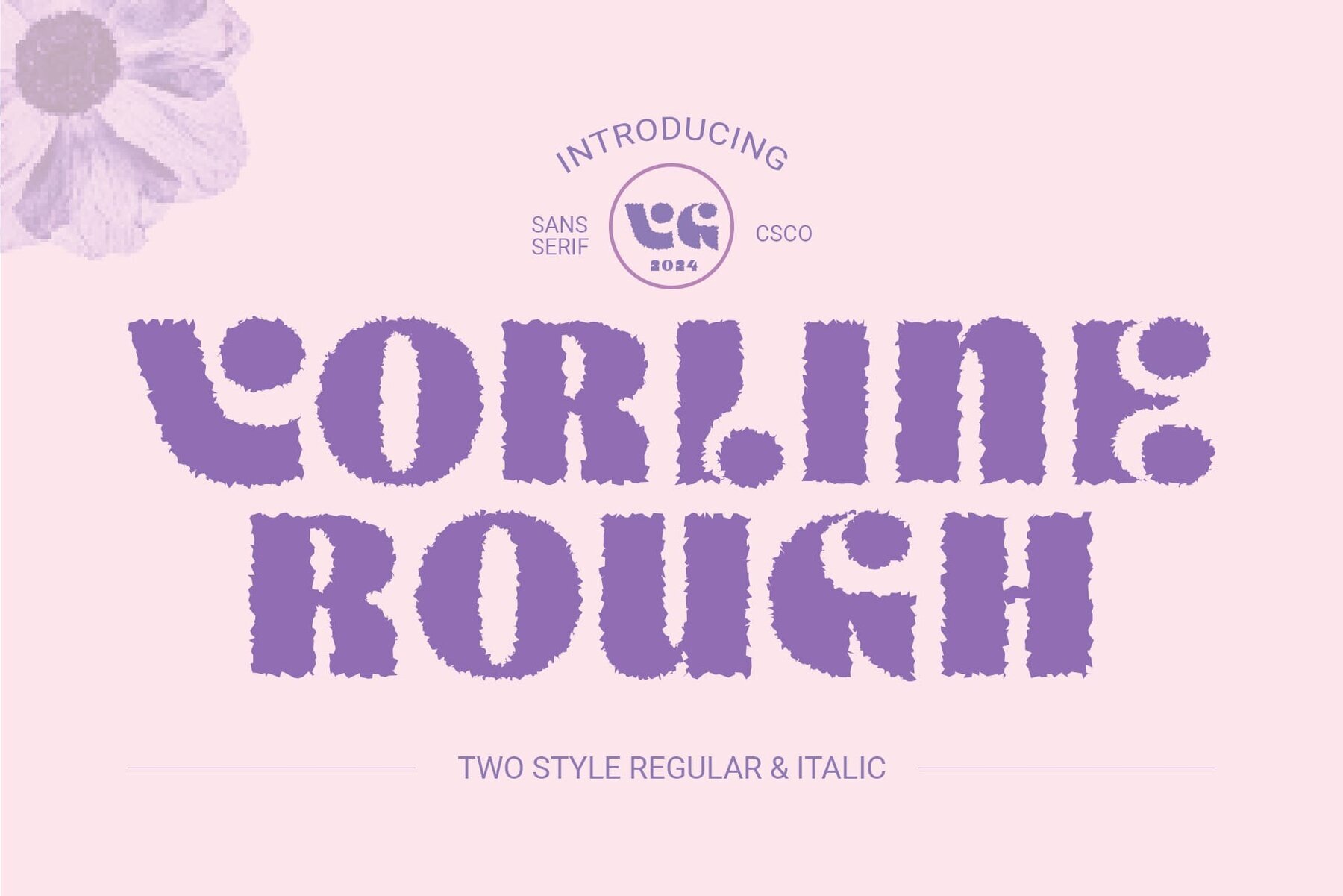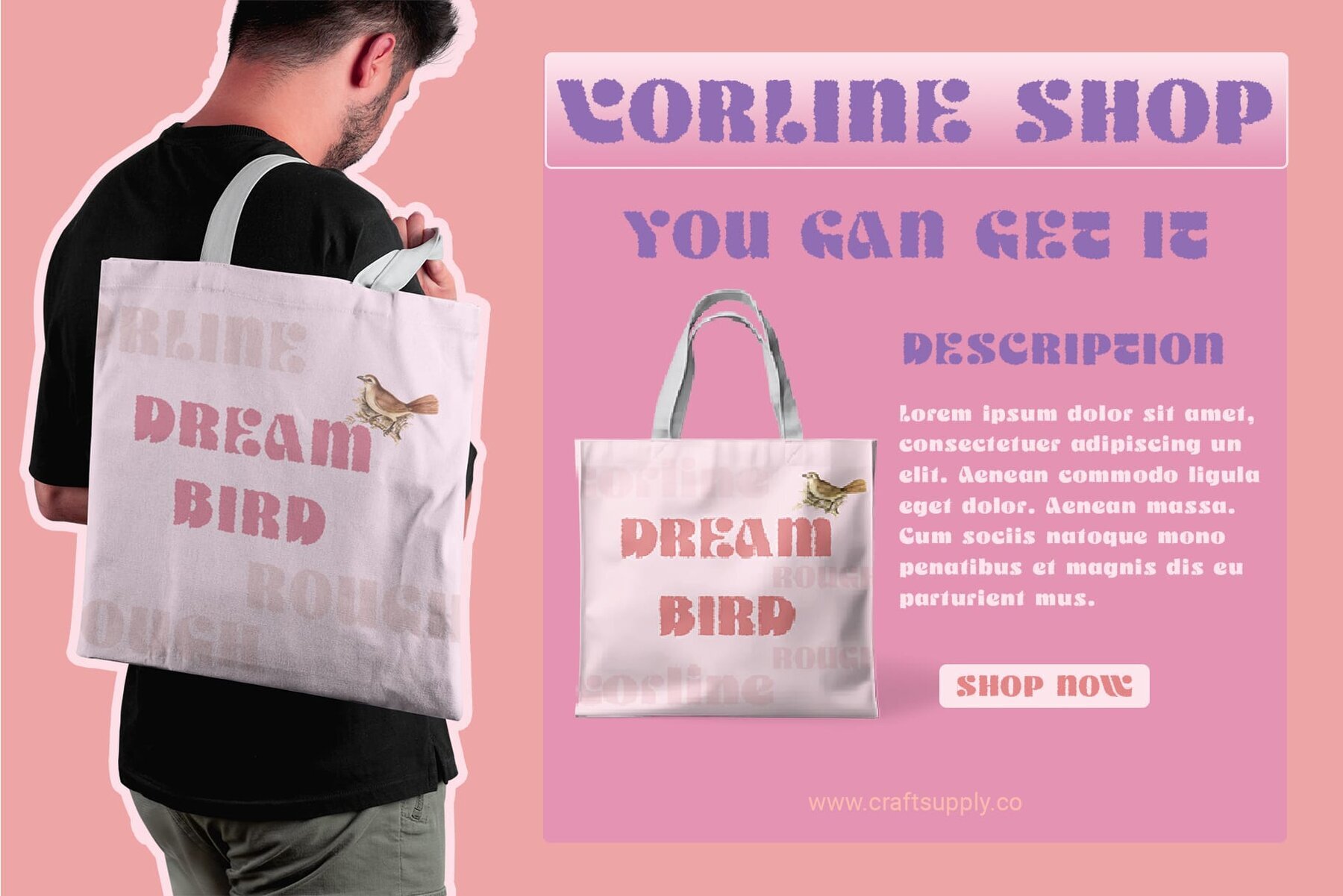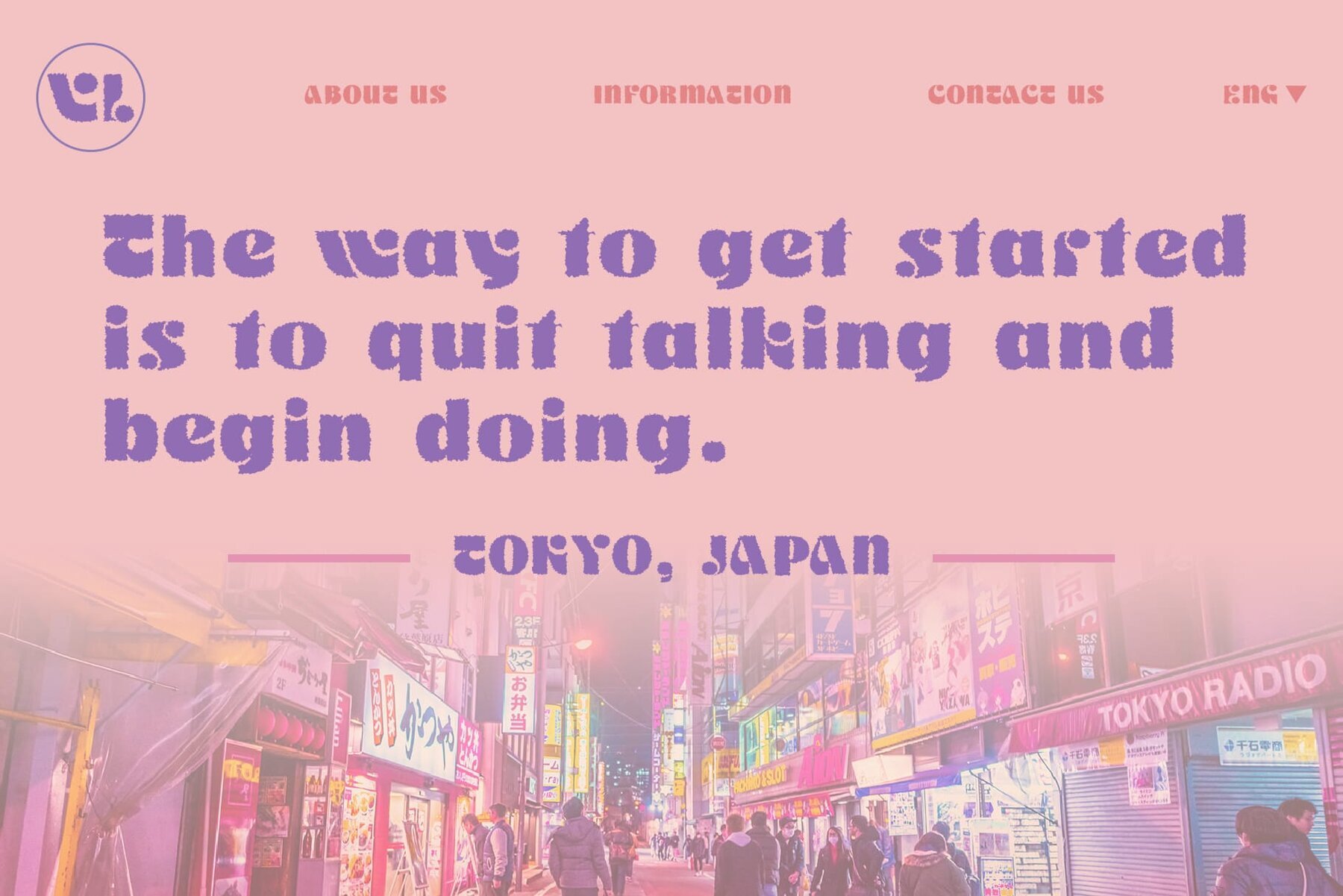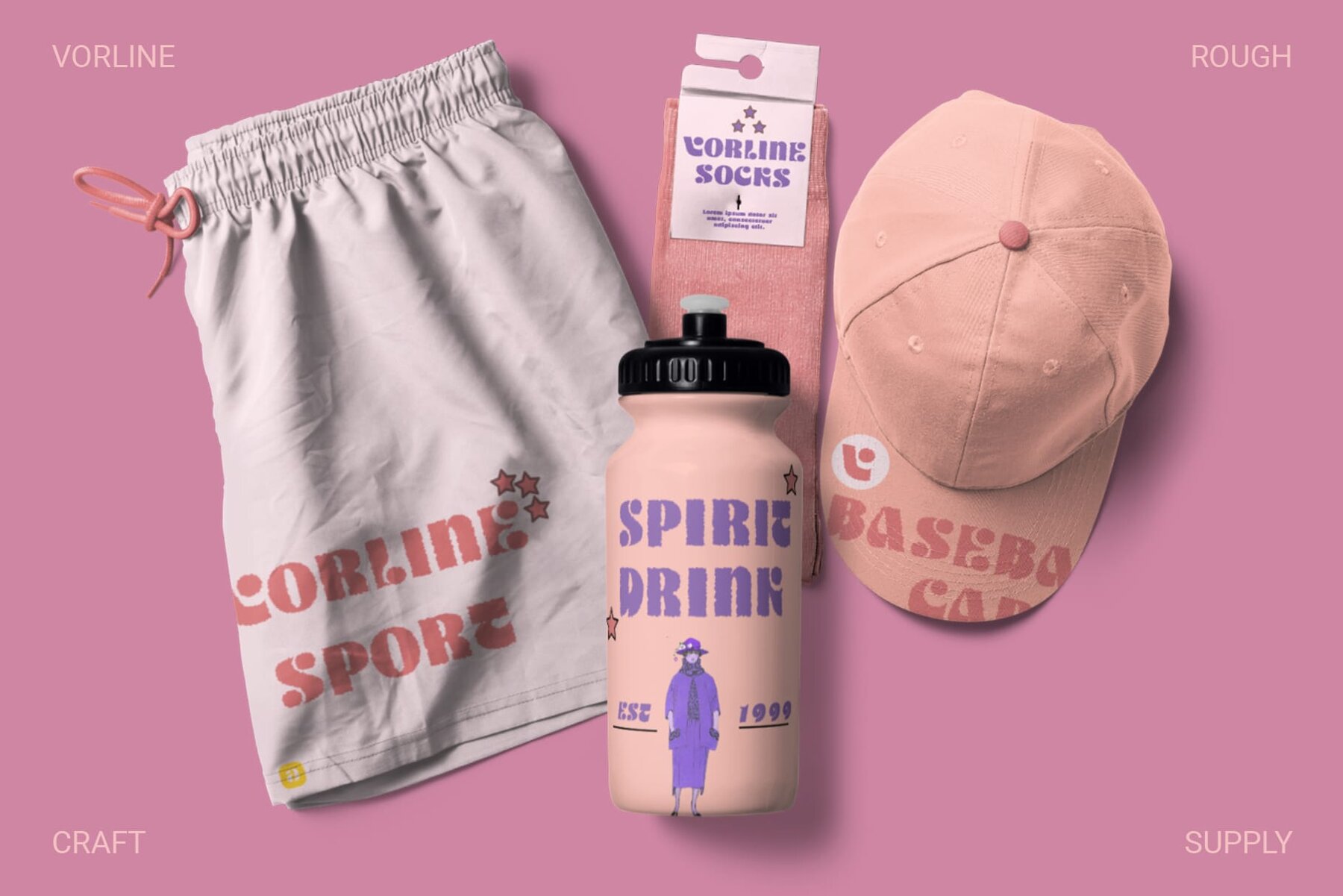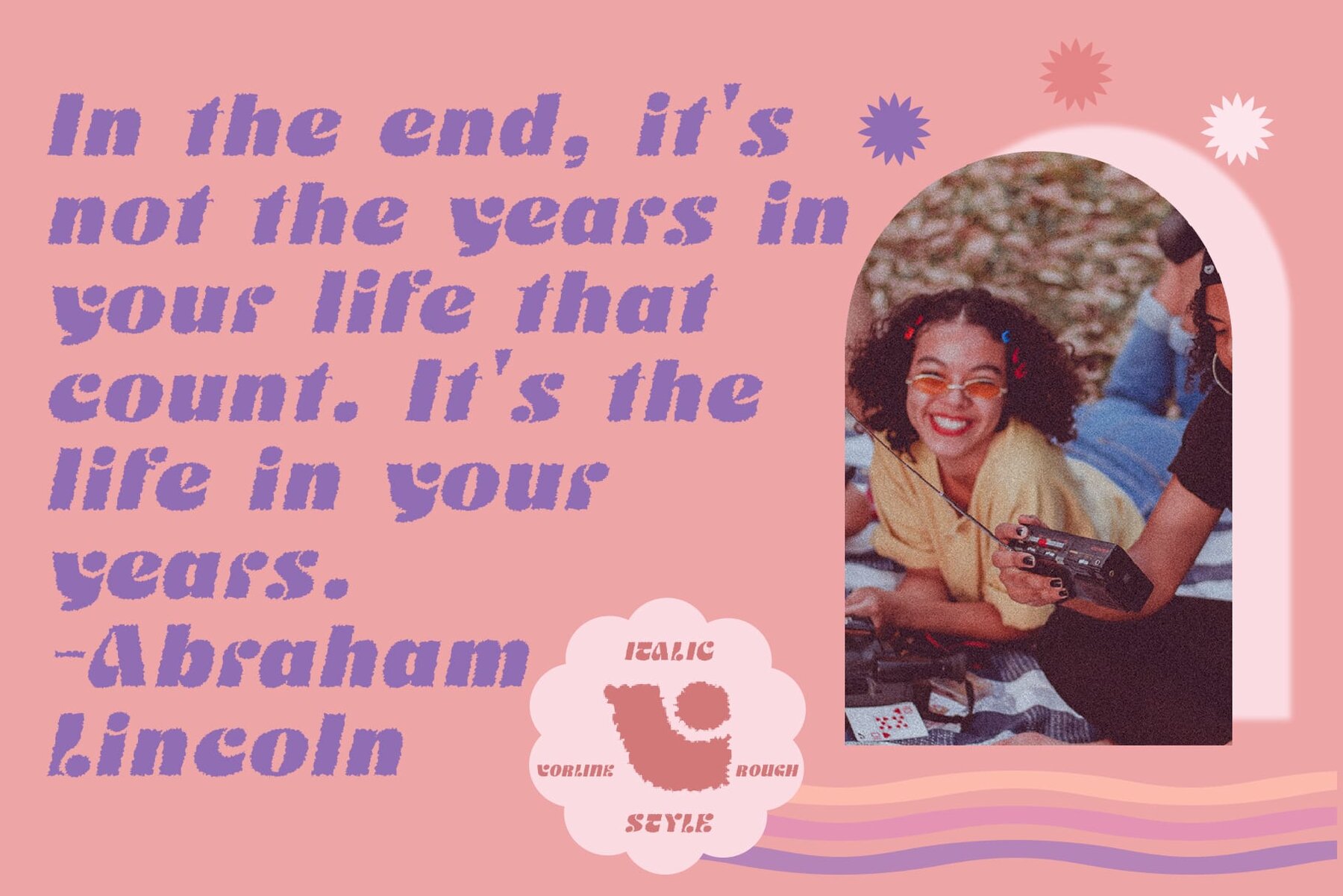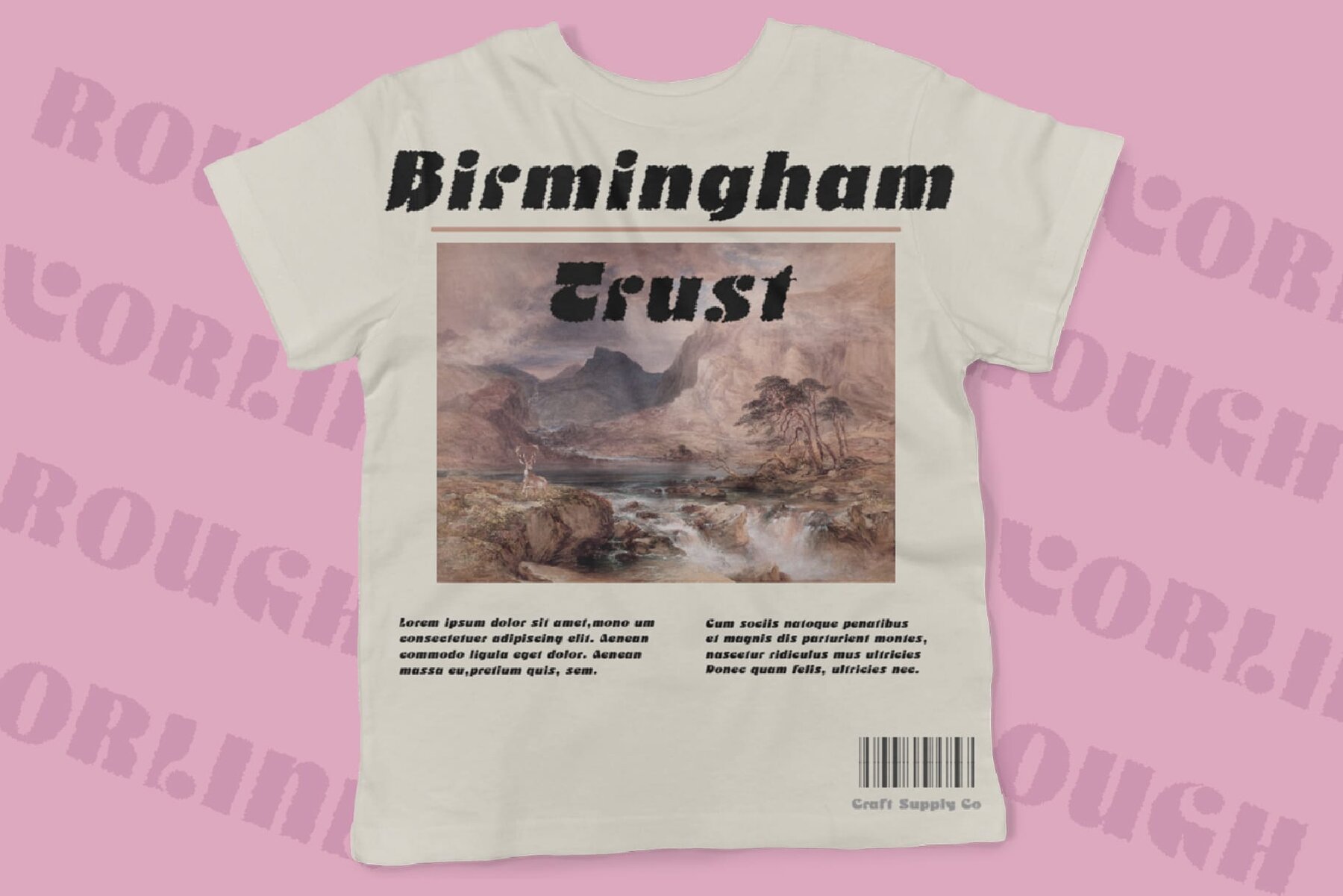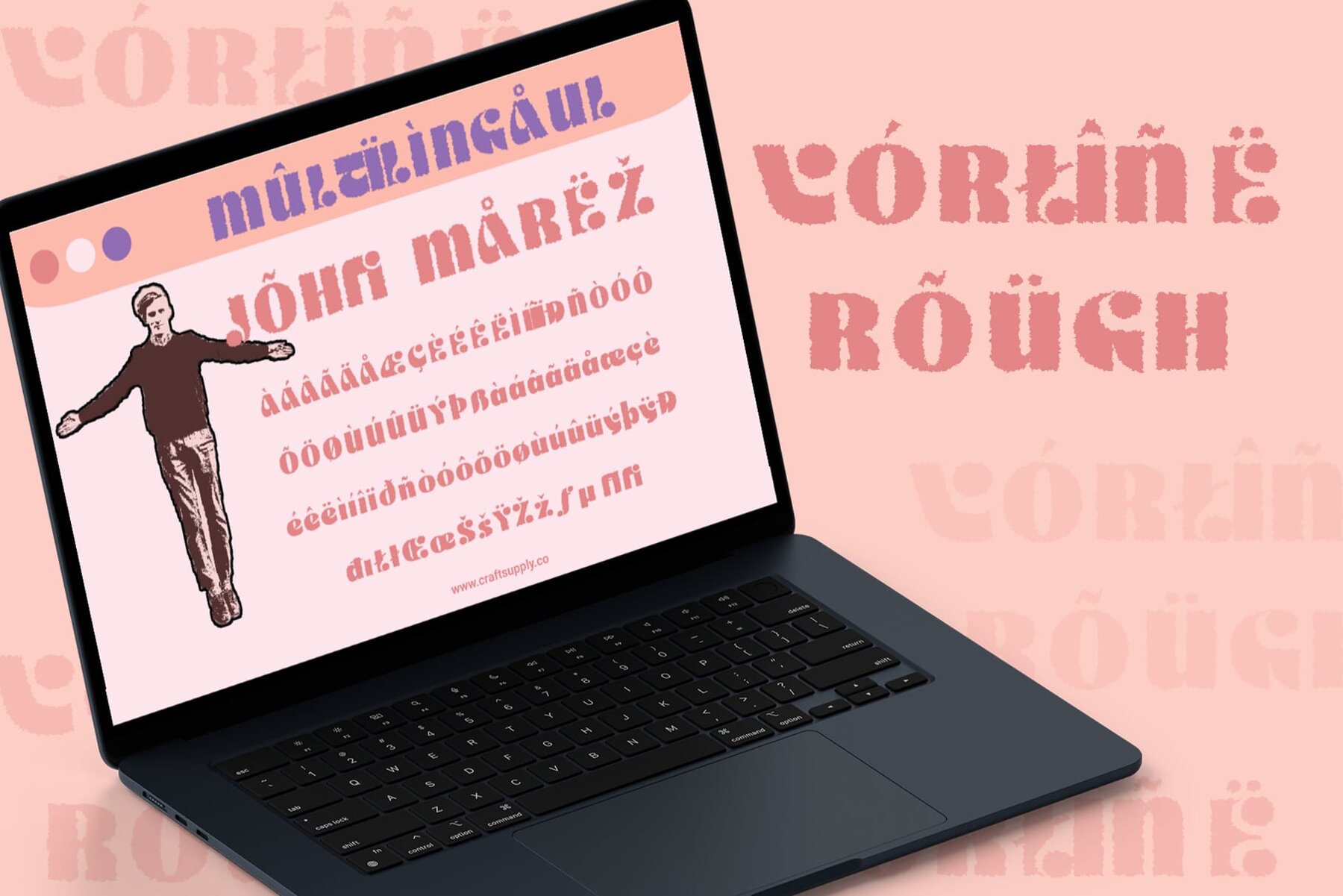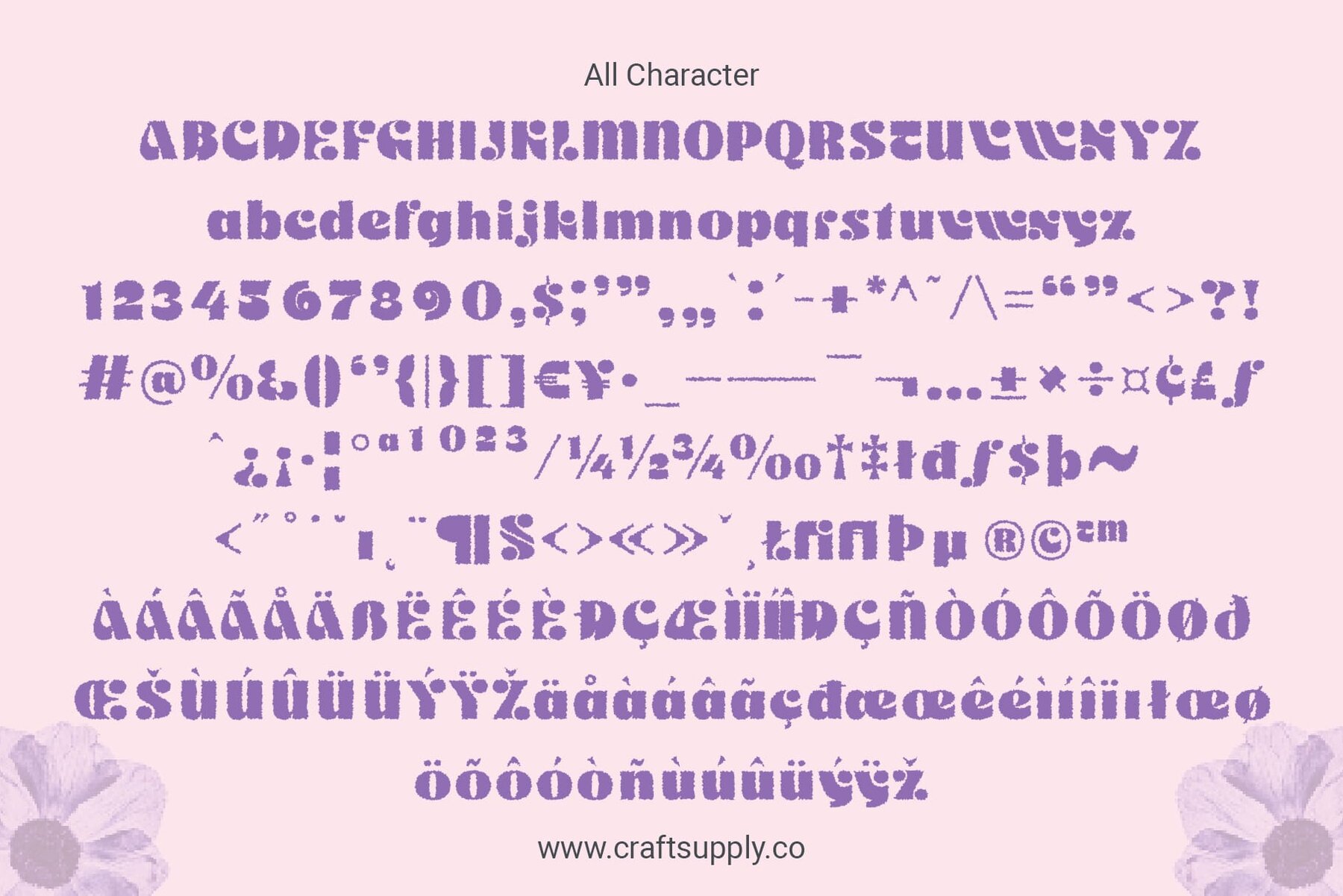
Vorline Rough Font
Vorline Rough is a bold sans serif display font that makes an immediate impact with its robust presence. Featuring thick strokes and clean lines, this typeface is ideal for headlines and titles. Designed with a retro flair, Vorline Rough introduces a sense of nostalgia and playfulness to your designs, imbuing them with a whimsical charm.
The font's unique rough effect further enhances its vintage display aesthetic, adding depth and character. This textured look provides an authentic, nostalgic feel that enriches any project. With both Regular and Italic versions included, Vorline Rough offers versatility and style, featuring uppercase and lowercase characters, numerals, punctuation, and support for multilingual accents. PUA encoding ensures easy access to all glyphs without requiring specialized software.